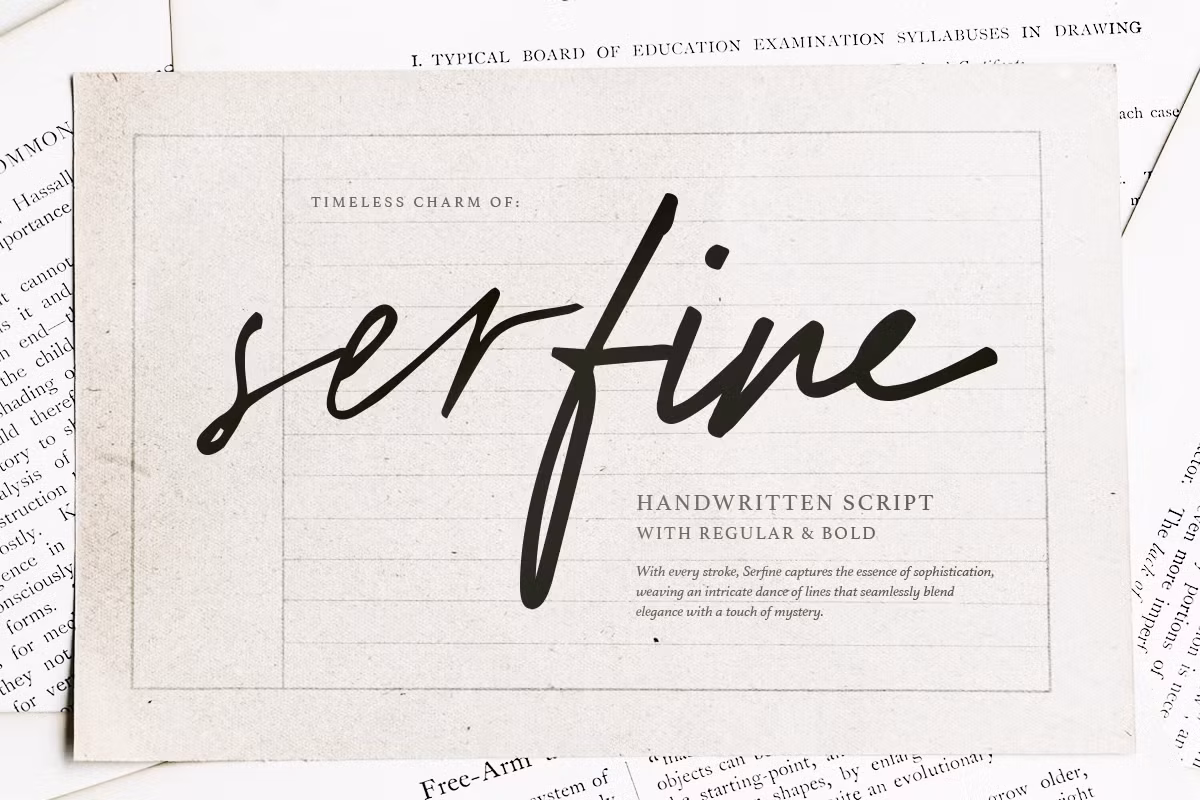
Serfine - Handwritten Script Font Free Download is an elegant and flowing typeface that captures the beauty of authentic handwriting. With its smooth, cursive lines and feminine charm, Serfine is perfect for wedding invitations, personal branding, greeting cards, lifestyle blogs, and social media graphics that need a soft, romantic touch.
Serfine - Handwritten Script Font Free Download adds warmth and elegance to any design. Its natural letter connections and graceful curves make it ideal for projects where you want to convey sophistication and sincerity. Download it today and bring your creative ideas to life with the refined script style of Serfine.